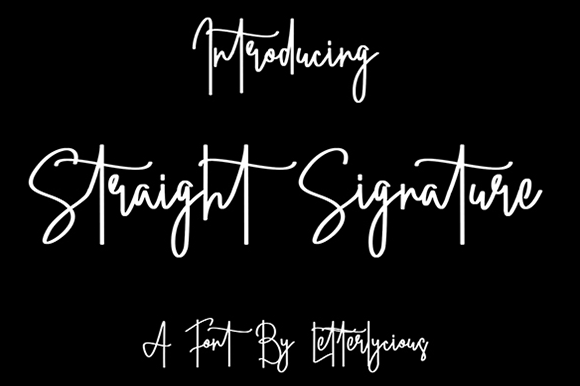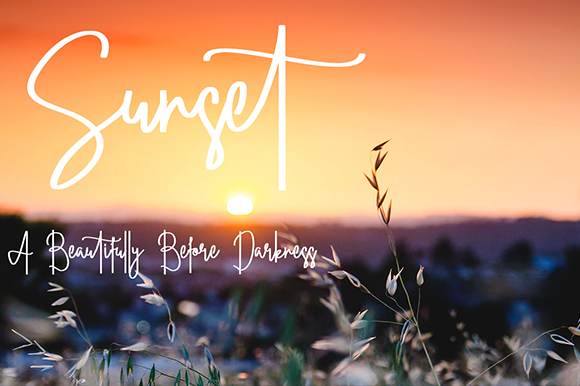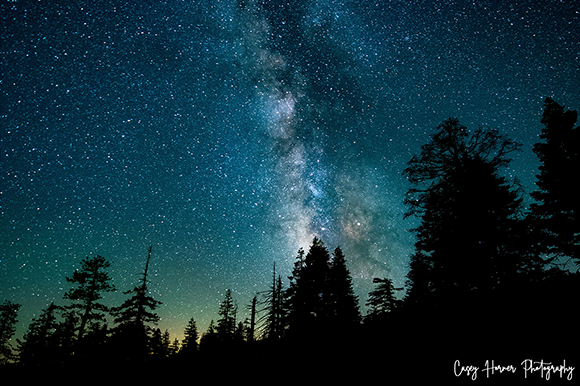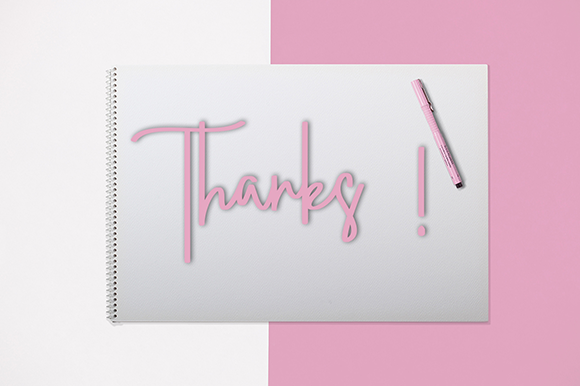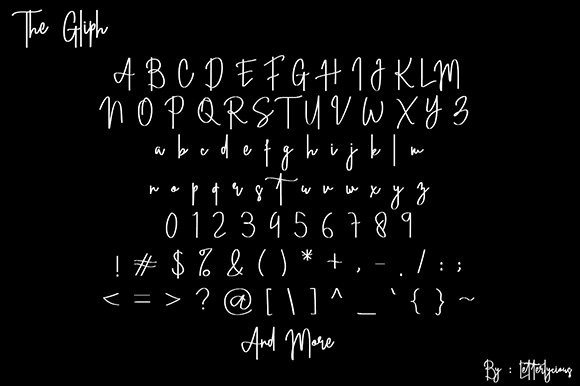
Straight Font
About Straight Font
Straight is inspired by classic typography and brings its own unique style to any design project. This handwritten font is the perfect fit for all of your logos, branding, social media, and crafty DIY projects.